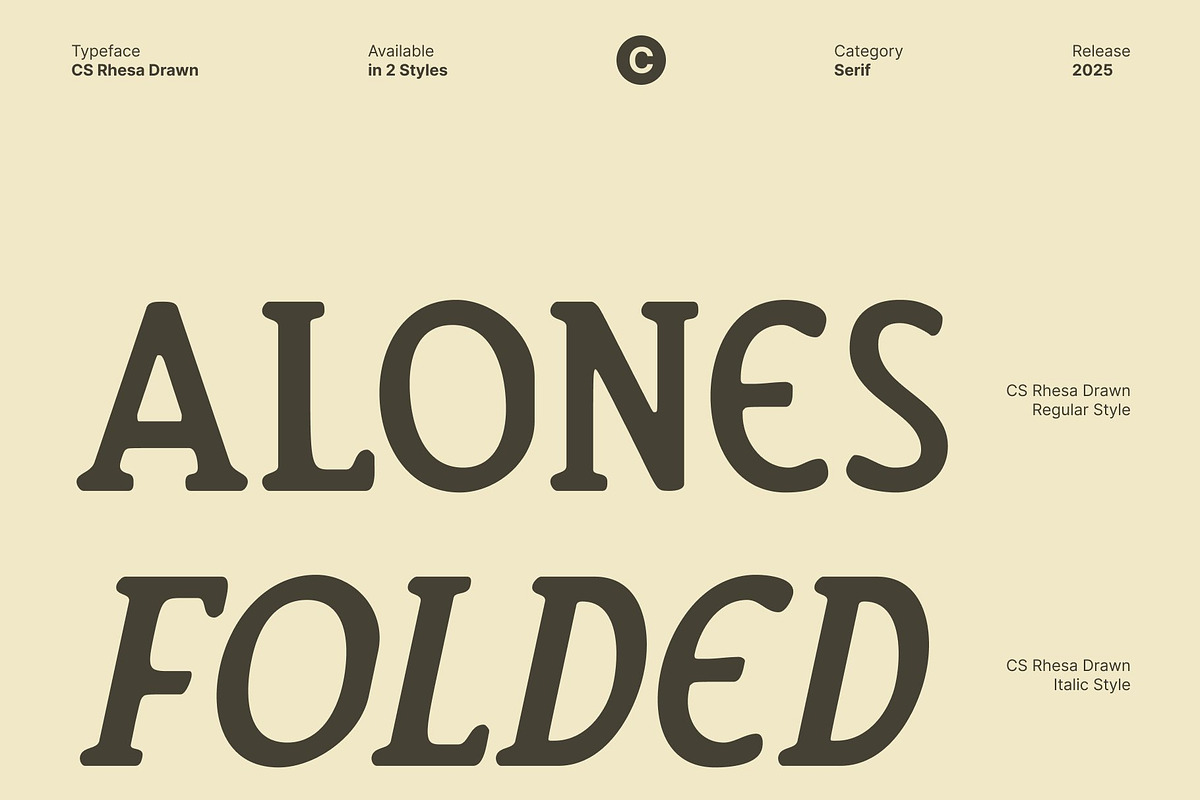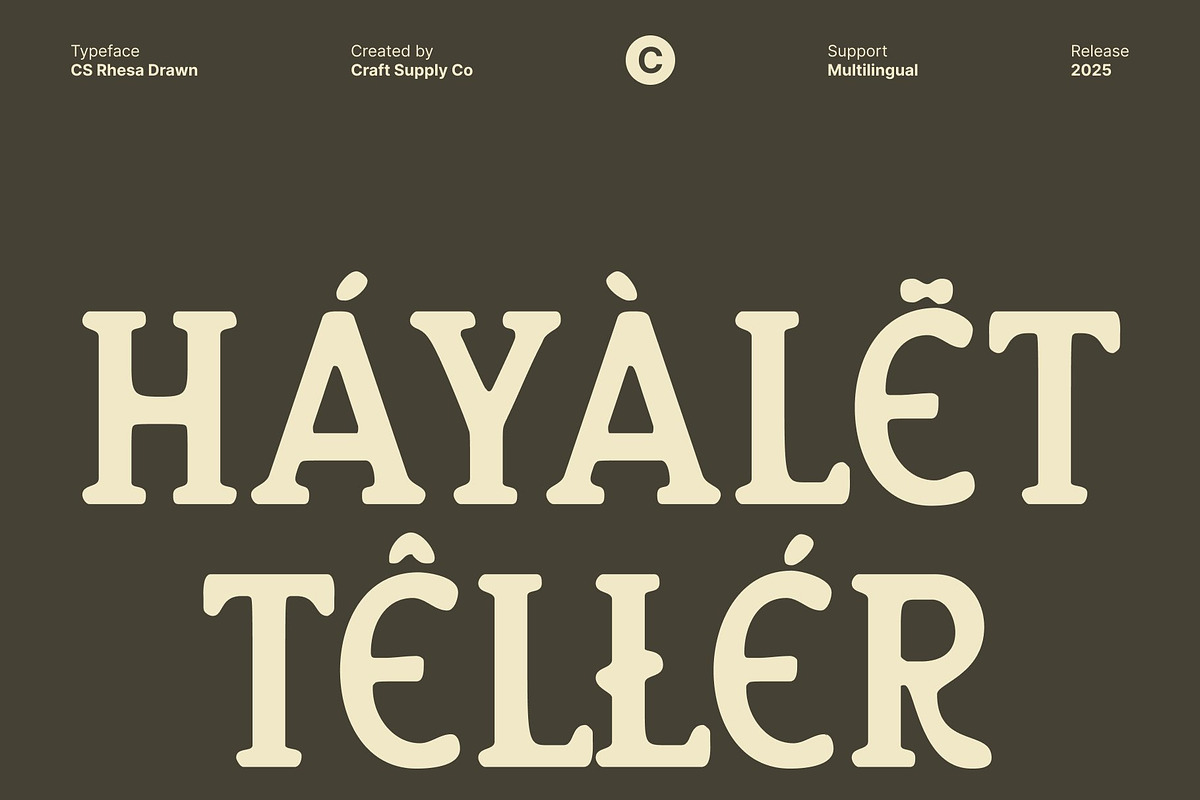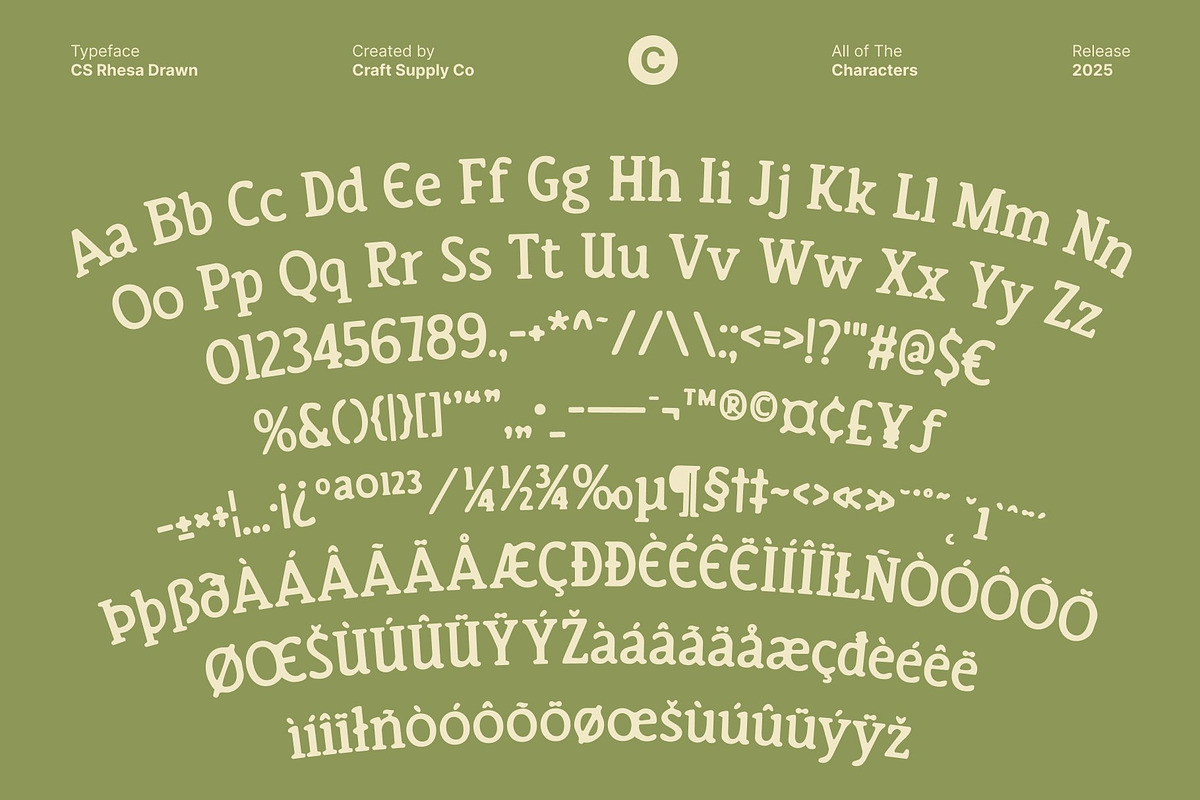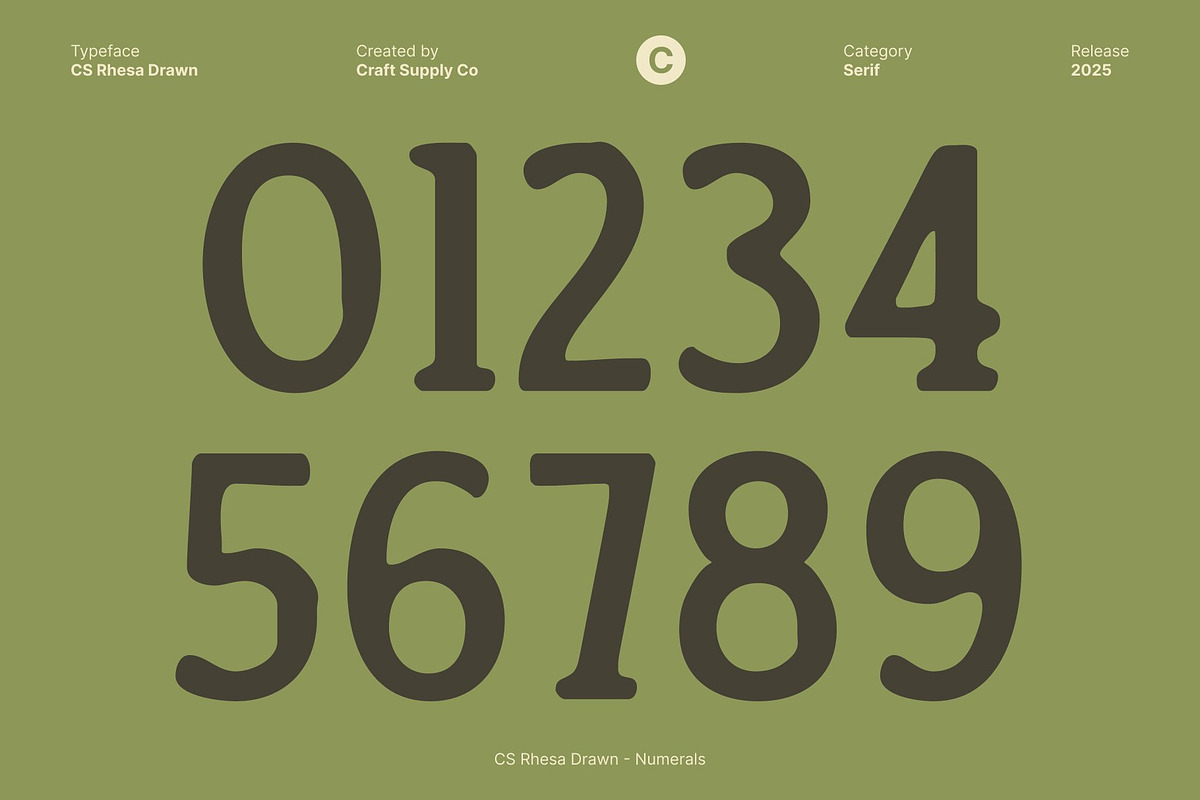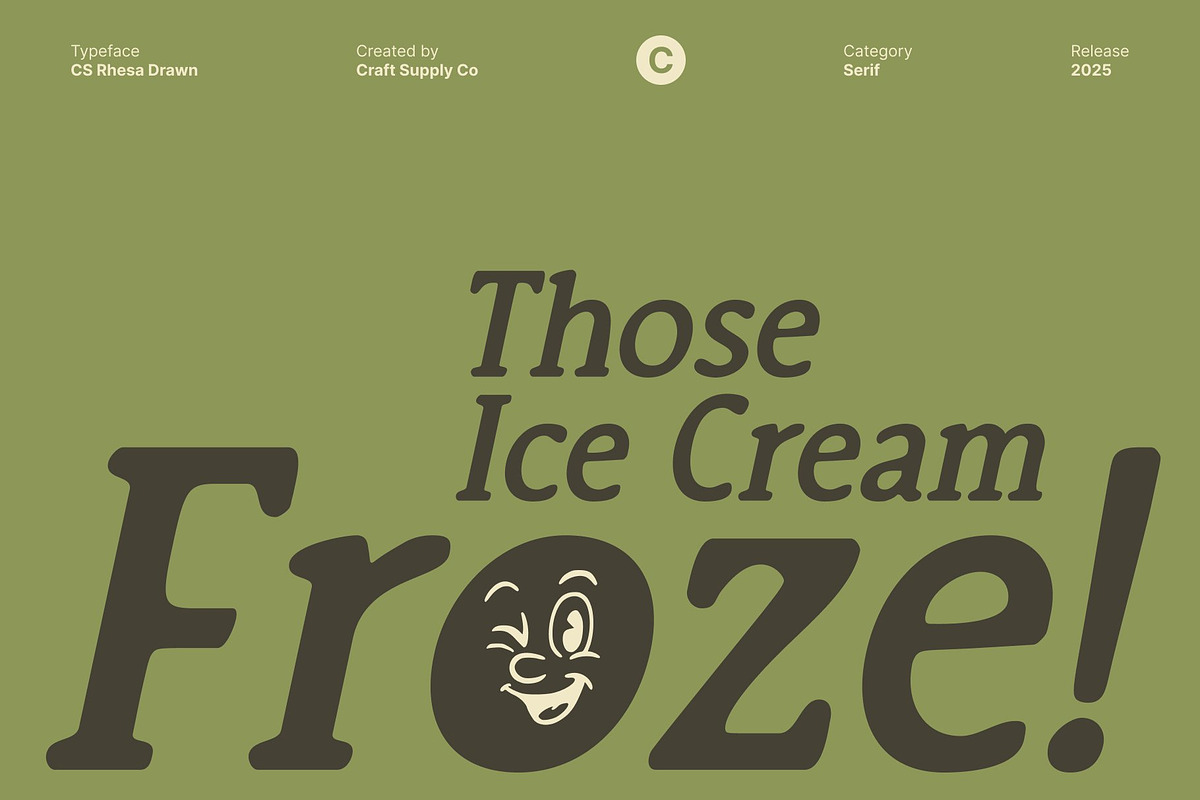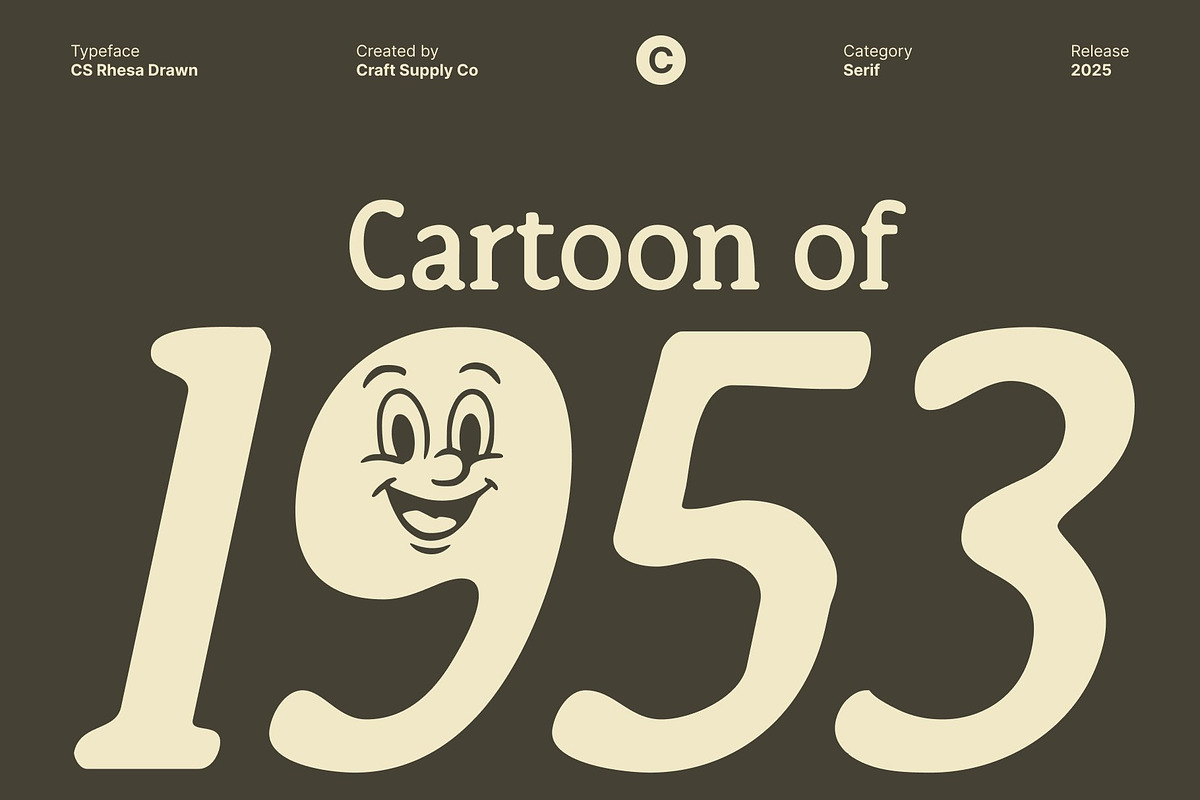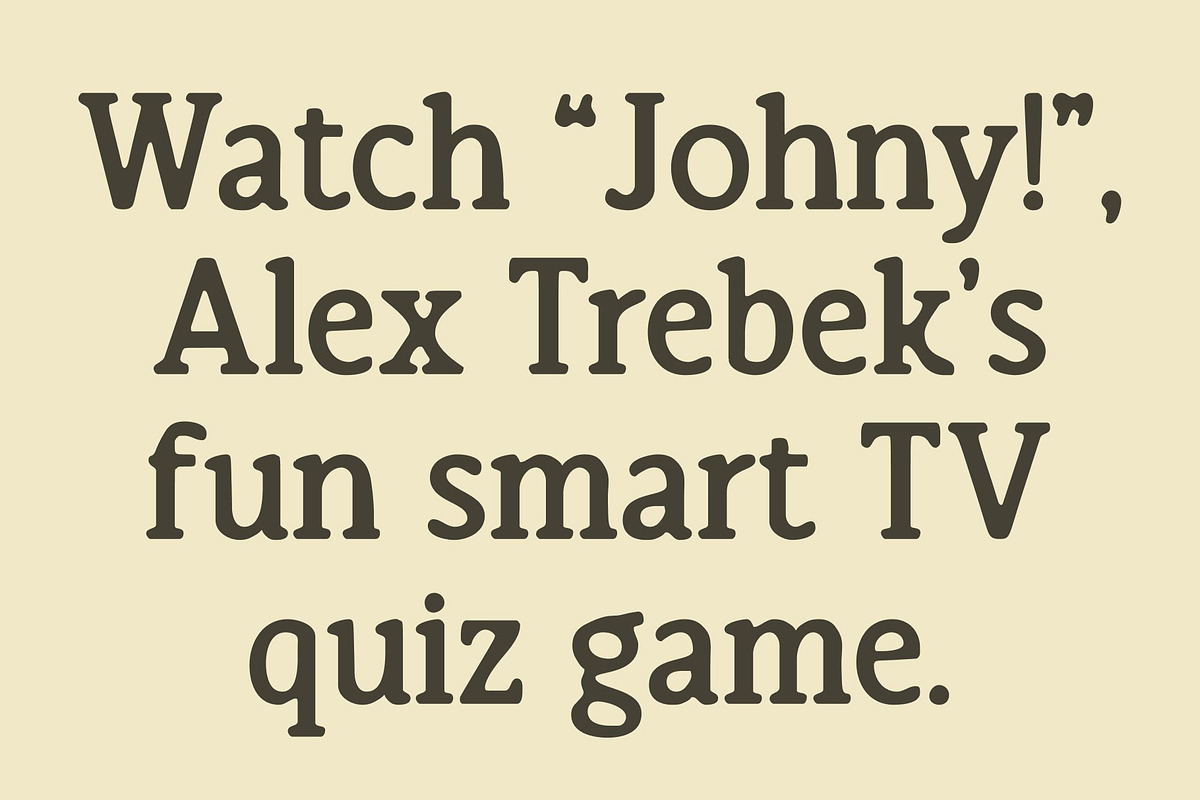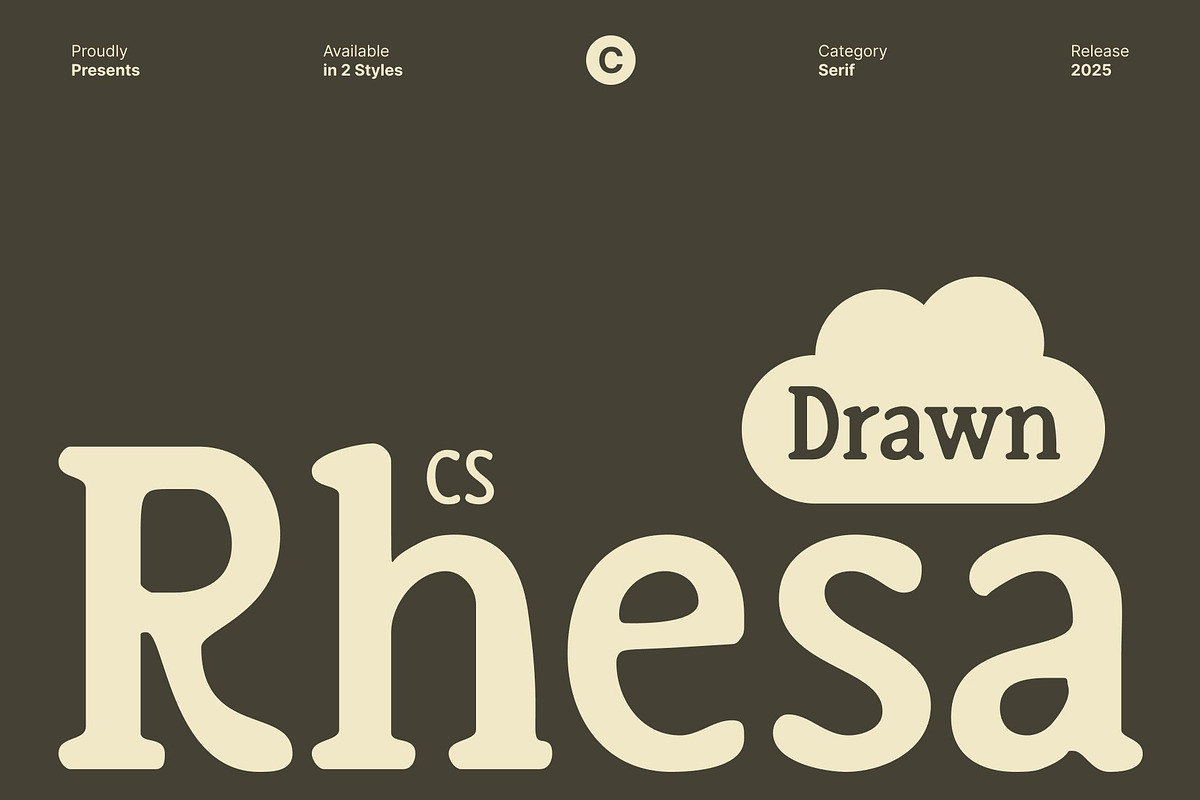
CS Rhesa Drawn
CS Rhesa Drawn – Retro Display Font with Playful Hand-Drawn Charm
Bold Retro Style with Timeless Nostalgic Appeal This is a retro display font that brings the timeless charm of vintage typography into modern design. With its bold shapes, smooth curves, and playful structure, this font instantly recalls the energetic styles of the past. Each letter carries a warm nostalgic spirit, making your design feel familiar, joyful, and visually engaging.
Playful Energy Inspired by Classic Eras Designed with lively, expressive forms, this font radiates fun and personality. The exaggerated proportions and retro-inspired curves deliver a cheerful visual rhythm, ideal for layouts that want to capture the dynamic attitude of classic advertising, posters, and pop culture. This font turns simple words into eye-catching, memorable statements.
Hand-Drawn Effect for Artistic Warmth and Texture A distinctive drawn effect elevates this font with a handcrafted, artistic touch. This texture introduces organic strokes, giving each character warmth and depth. The imperfect, human-made feel softens the bold retro forms, making the font look friendlier, more personal, and rich in character. It blends nostalgic design with artistic authenticity.
Perfect for Branding, Posters, and Retro-Inspired Campaigns This font shines in any project that aims to revive vintage aesthetics with a creative twist. Use it for branding, posters, packaging, social media graphics, merchandise, or retro-themed campaigns that need both personality and visual impact.